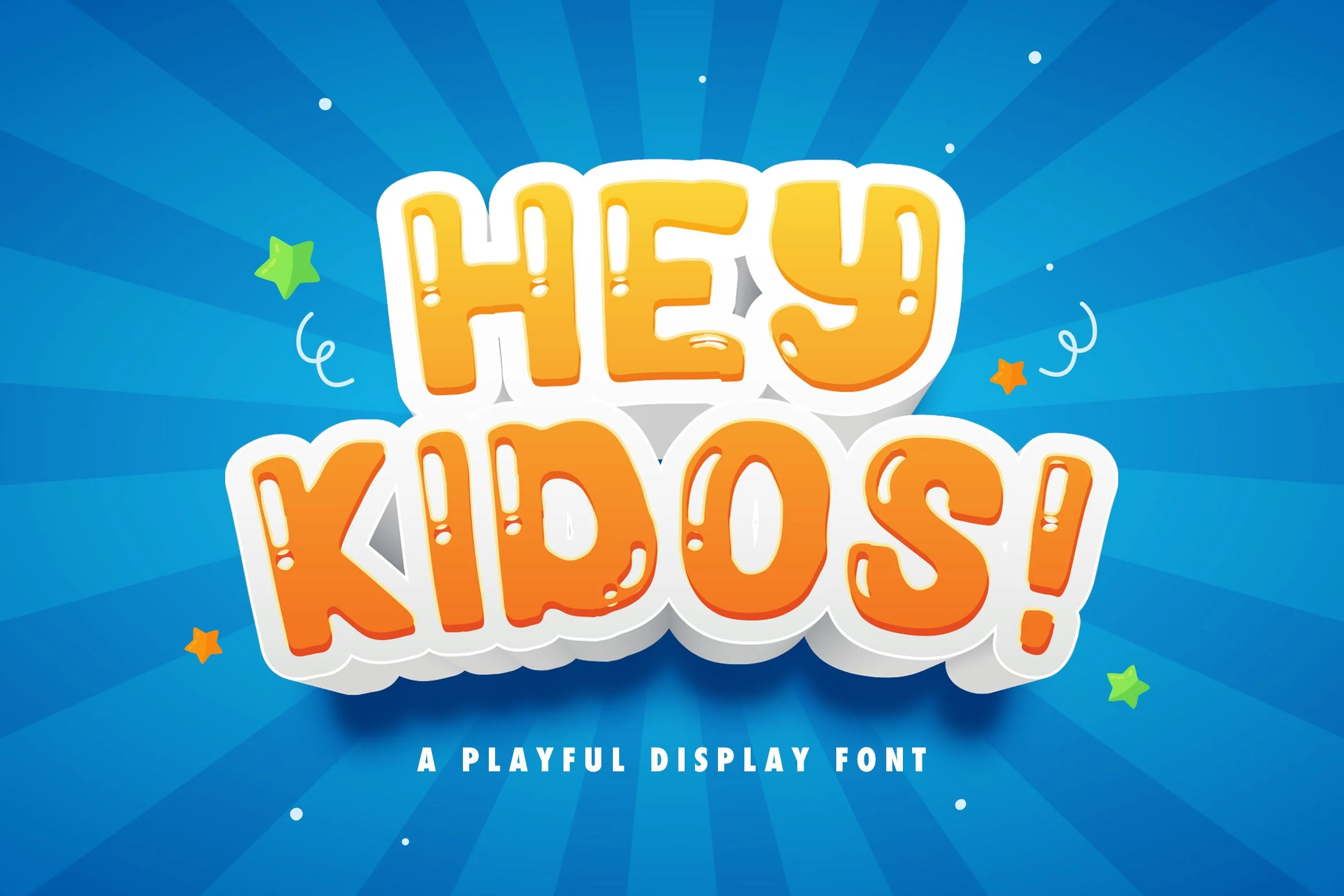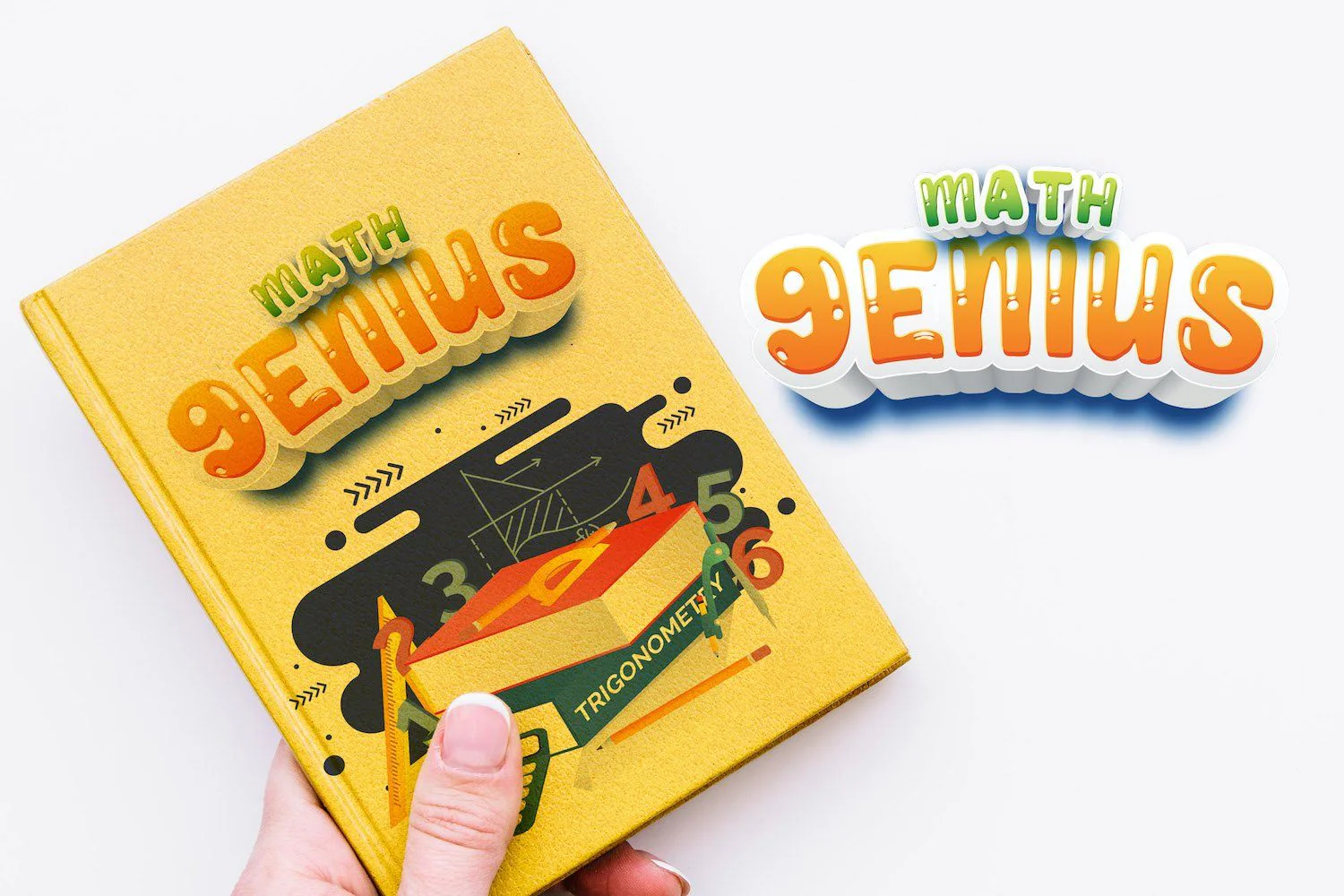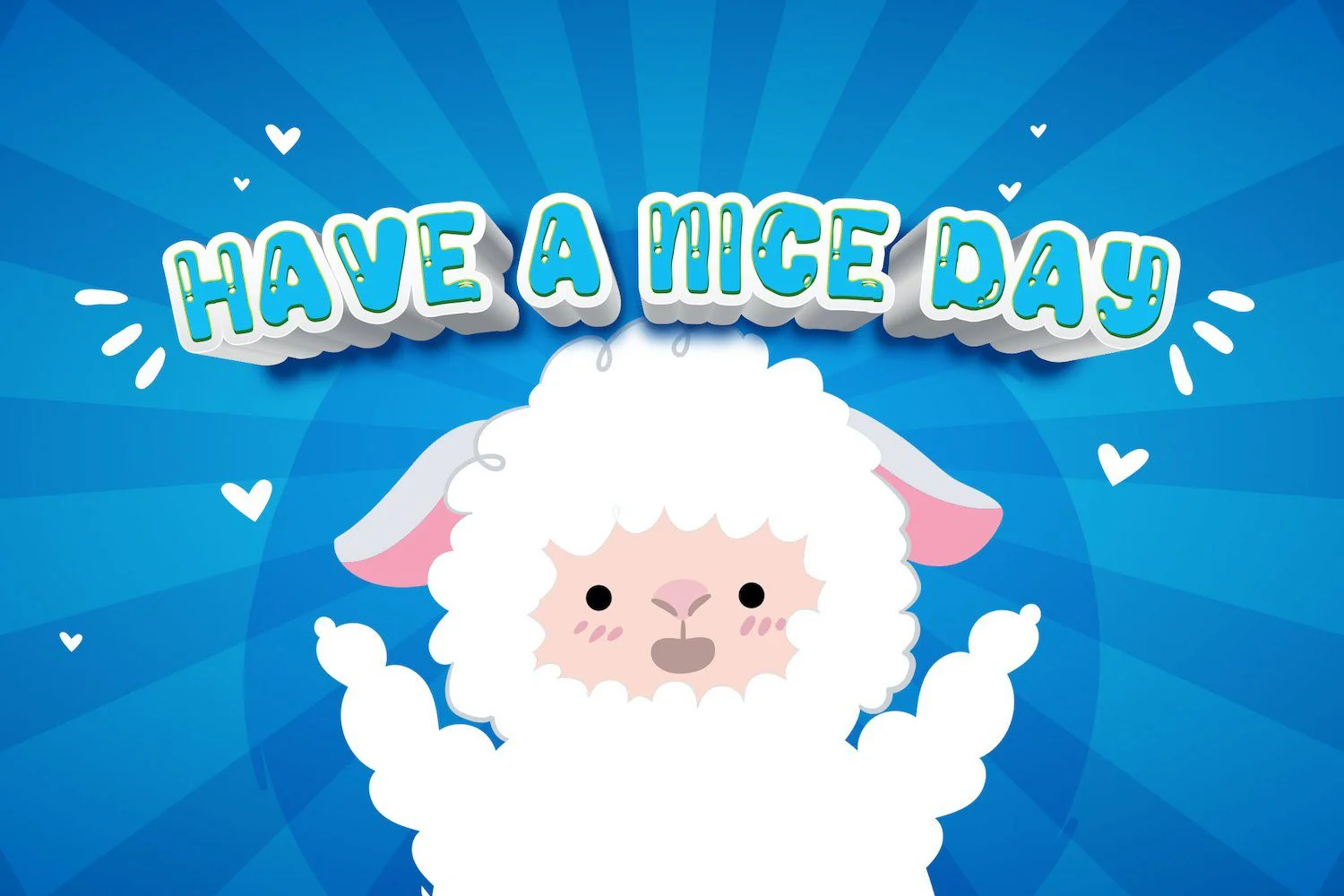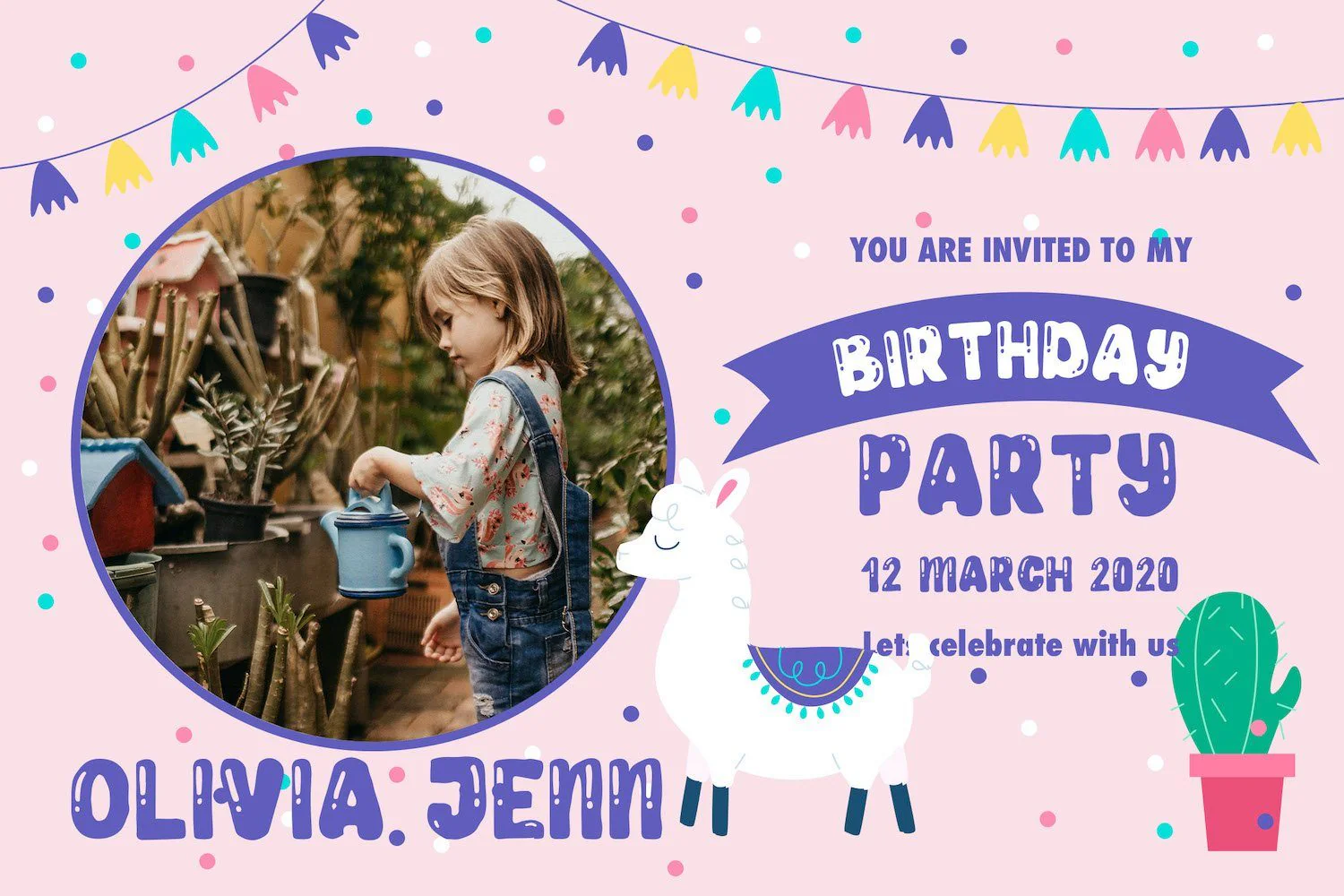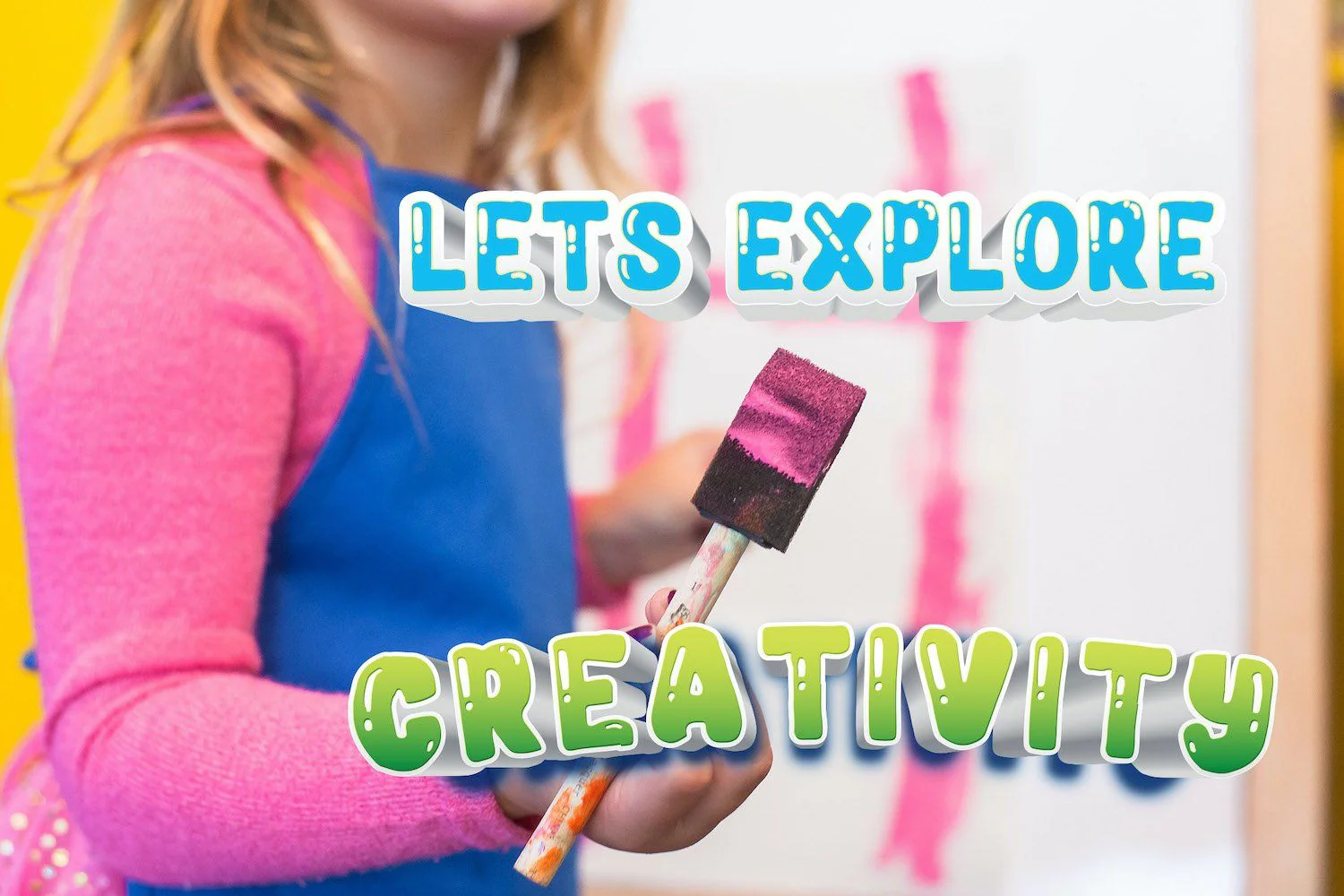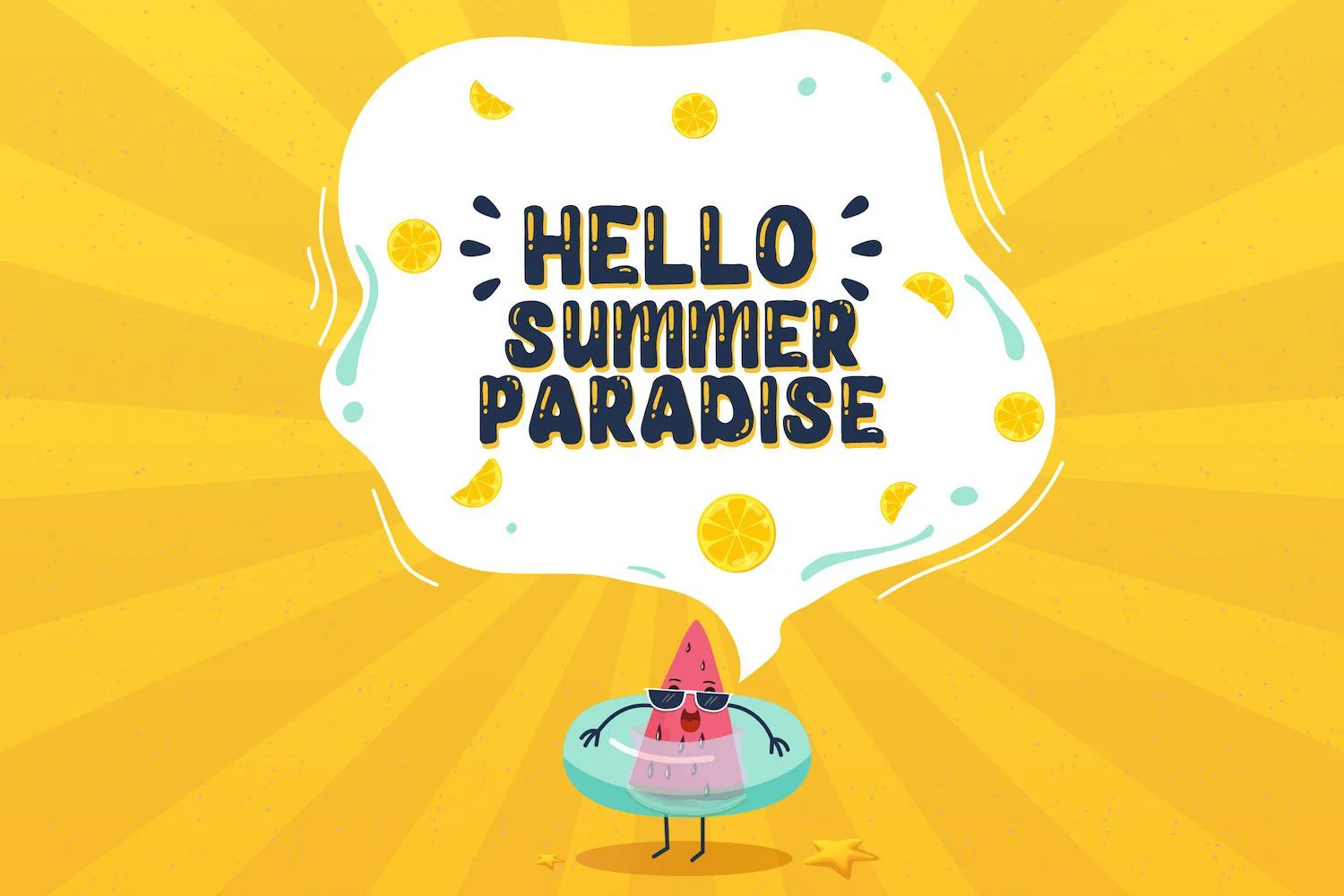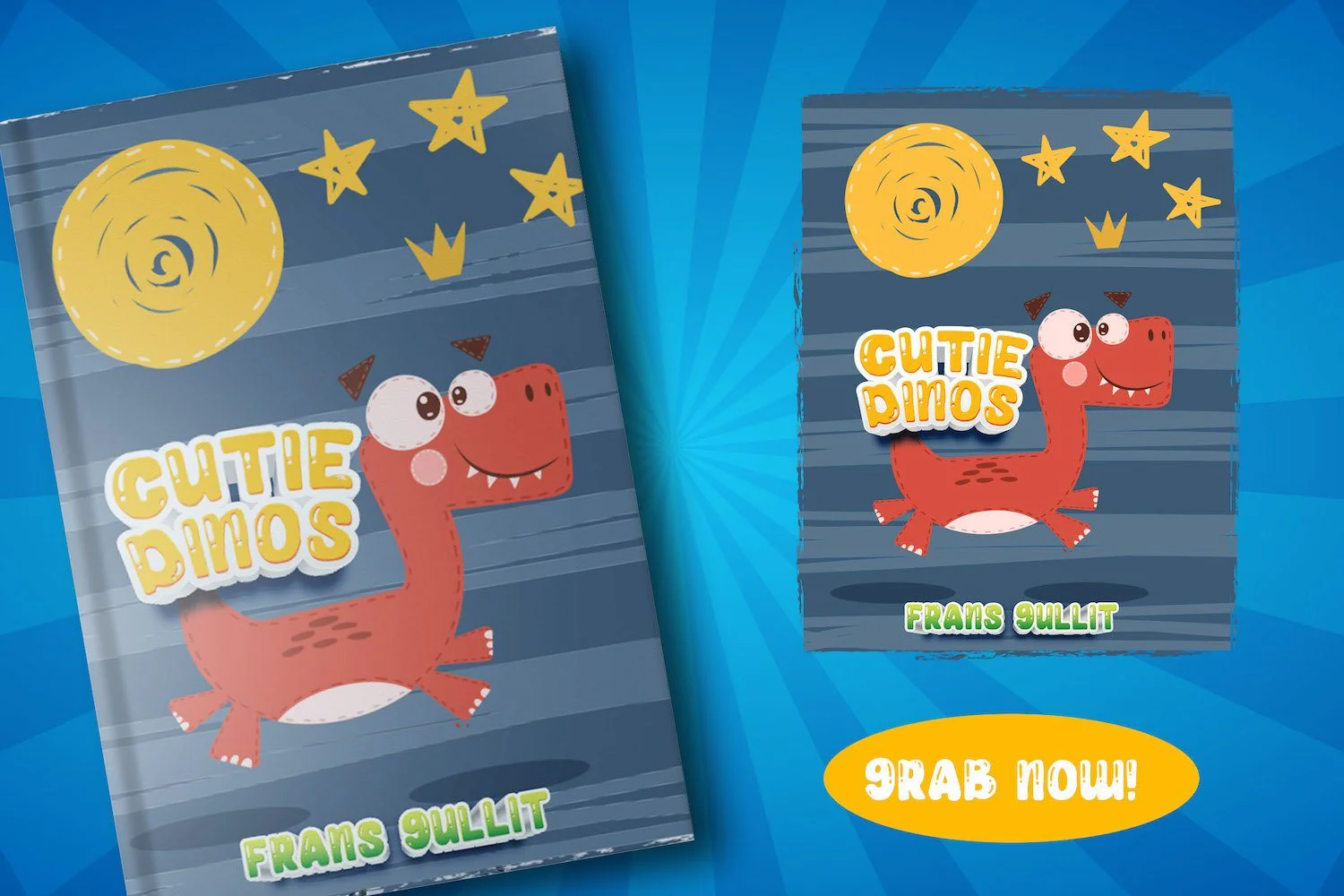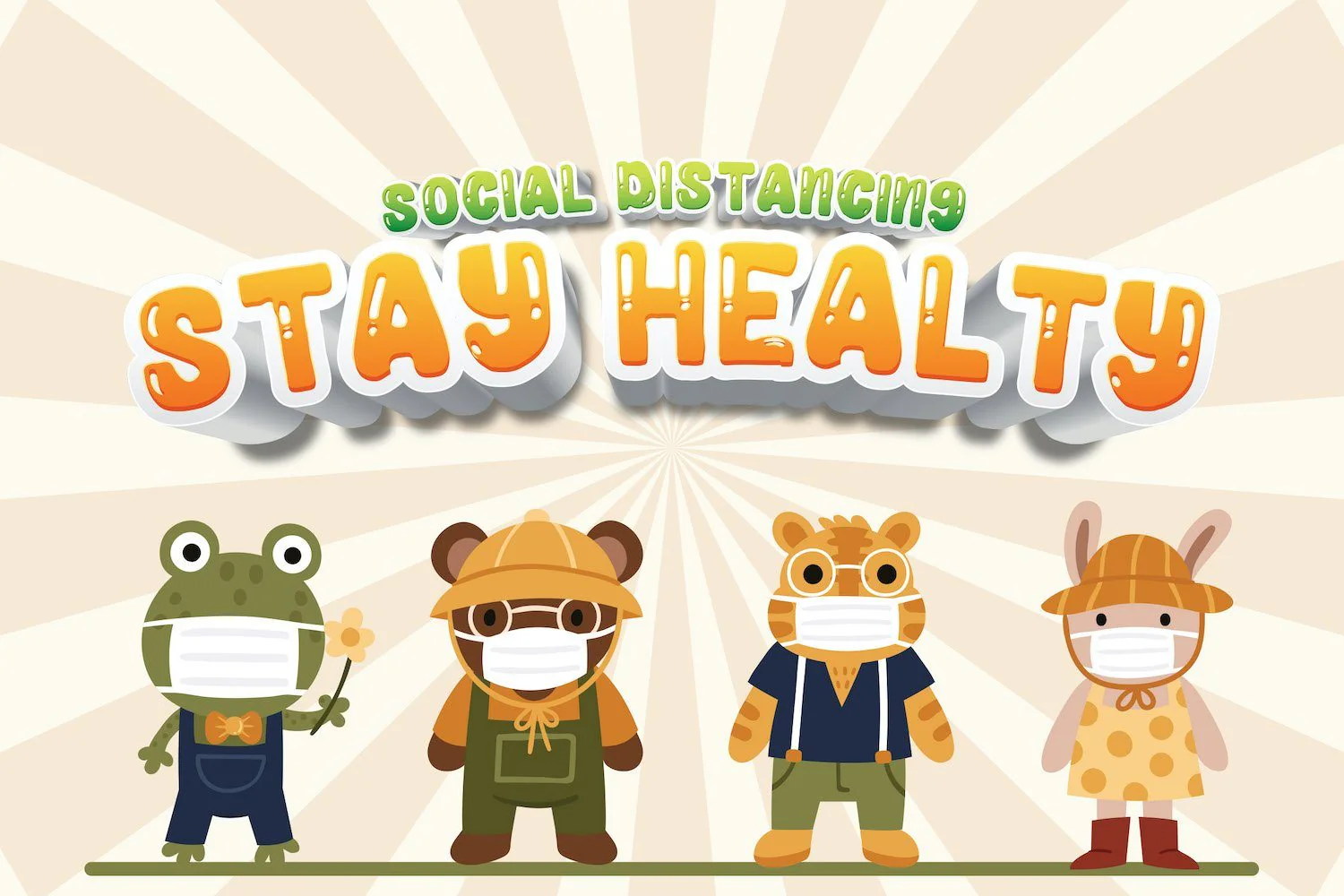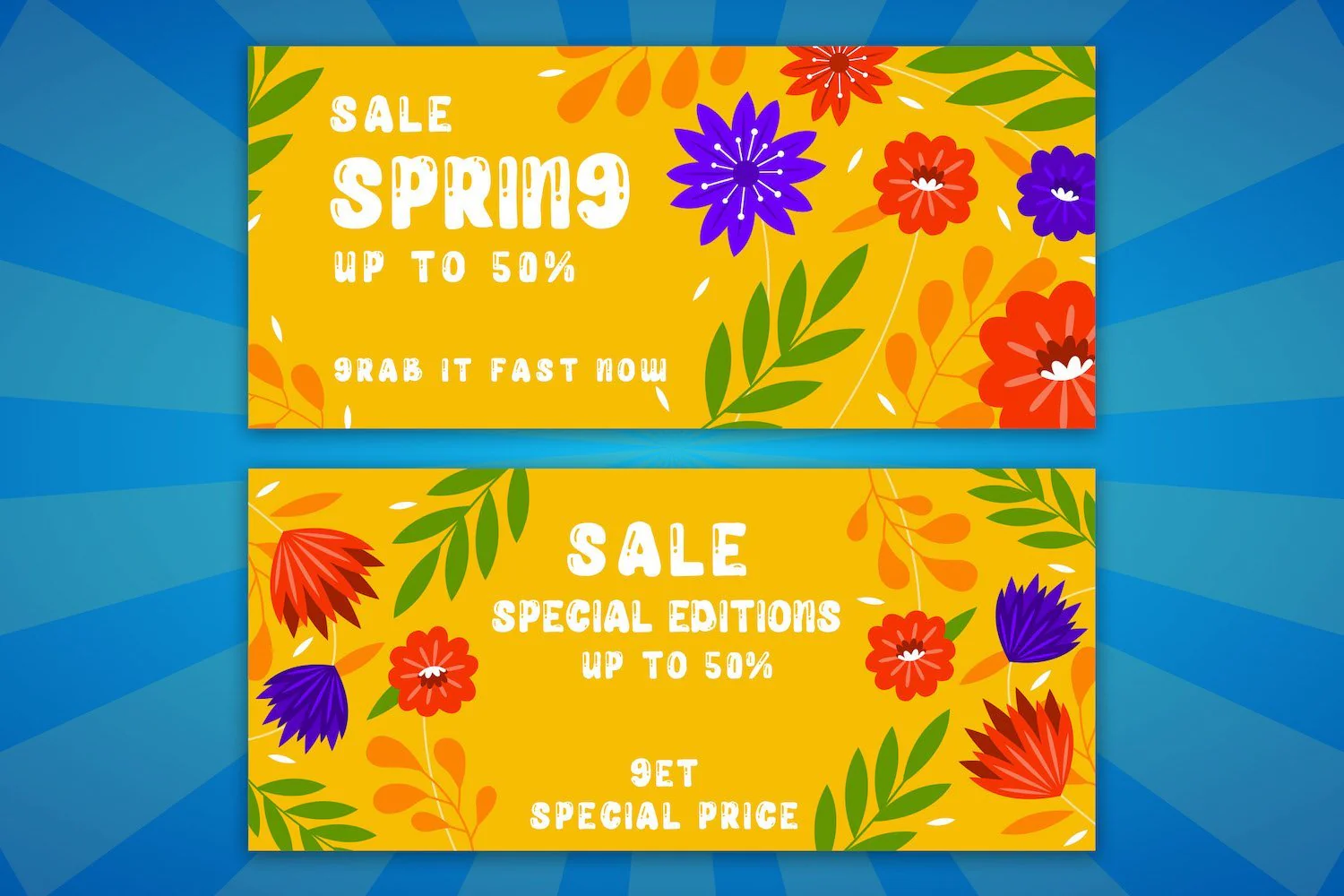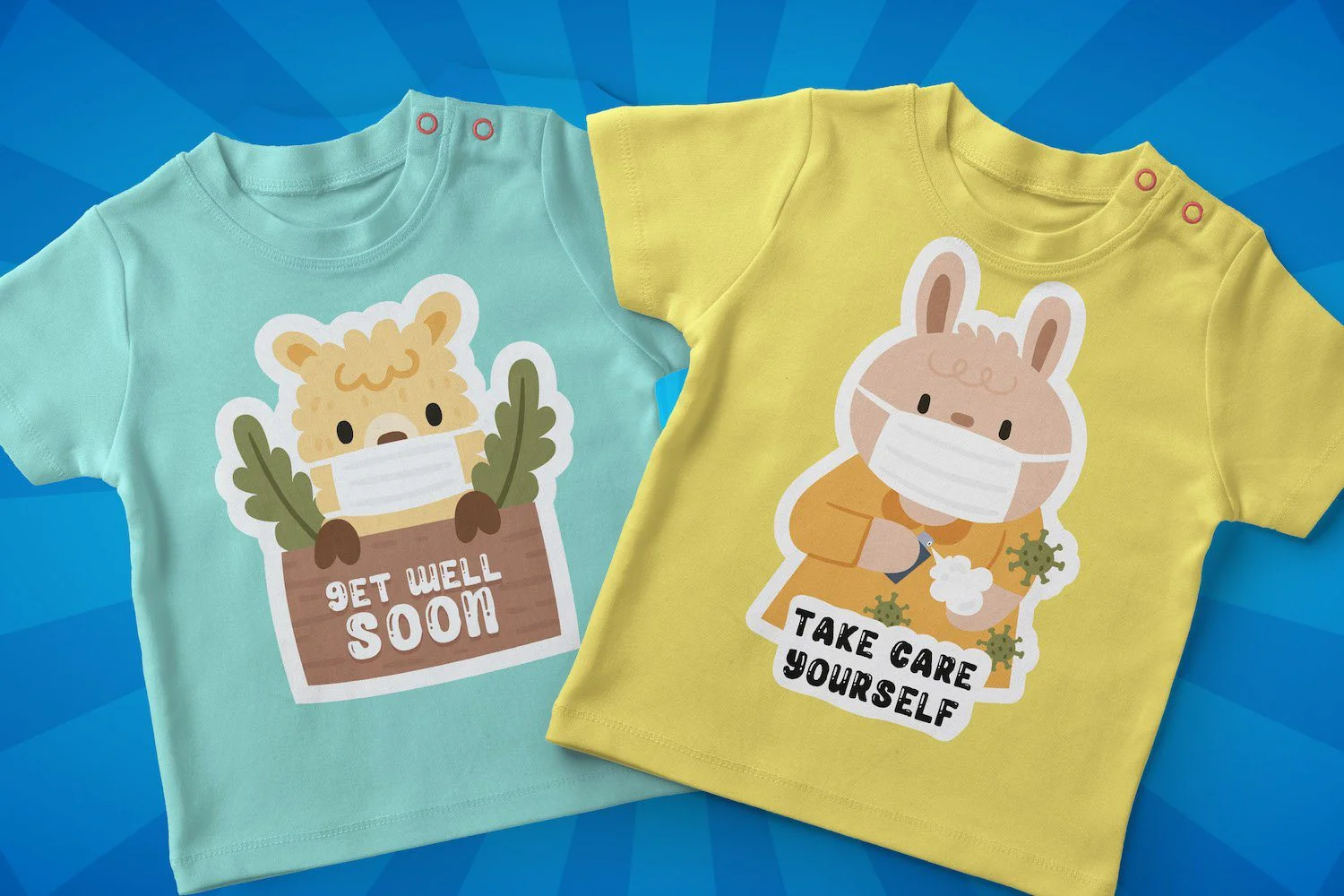
Hey Kidos! - Playful Display Font
Introducing Hey Kidos! - Playful Display Font
Hey Kidos is a fun and chunky lettered display font. Playful and fresh, this font will be a hit for each of your children or school projects!